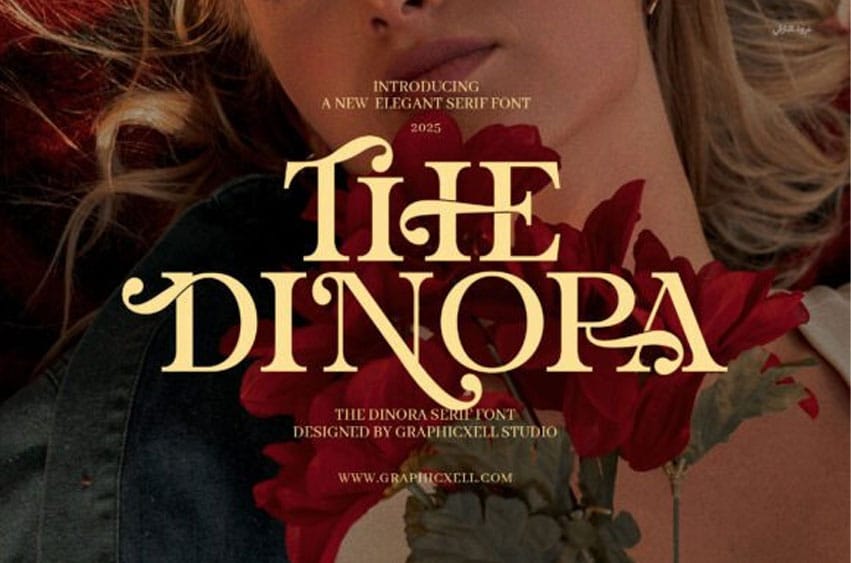
The Dinora Font is the perfect blend of contemporary sophistication and timeless charm. With its refined serifs and stylish, clean lines, this font exudes an air of elegance and modernity that is ideal for a wide range of creative projects. Whether you’re working on high-end branding, luxury product labels, or sleek editorial layouts, Dinora is the font that will elevate your design to new heights.
Crafted with meticulous attention to detail, **The Dinora Elegant Serif Font** features stunning ligatures and alternates that bring a distinct, customized feel to every word. Its versatile letterforms make it incredibly adaptable, allowing it to shine in both traditional and modern contexts. From corporate branding to chic boutiques, this font makes a powerful statement wherever it’s used. The elegant serifs lend themselves beautifully to print and digital design, adding a touch of sophistication to magazines, websites, and advertisements. Whether it’s the refined spacing of the letters or the delicately curved strokes, Dinora provides an effortlessly classy vibe that works in a variety of settings. It’s not just a typeface—it’s an experience, capturing the essence of luxury and modernity. With its comprehensive set of alternate characters and smooth ligatures, the Dinora Elegant Serif Font allows for endless creative possibilities.
Each letter feels deliberate yet free-flowing, perfect for designing custom logos or unique brand identities. Its beauty is in its simplicity and strength, making it ideal for businesses looking for a versatile yet distinguished typeface that stands out in a crowded market. For anyone in need of a premium and stylish font that complements both modern designs and classic themes, **The Dinora Elegant Serif Font** is the ideal choice. From boutique shops to food brands, fashion magazines to digital ads, this font brings elegance, readability, and flair to every project. — This description incorporates essential keywords like “elegant,” “luxury,” “branding,” “ligatures,” and “modern” while presenting the font freshly and enticingly.